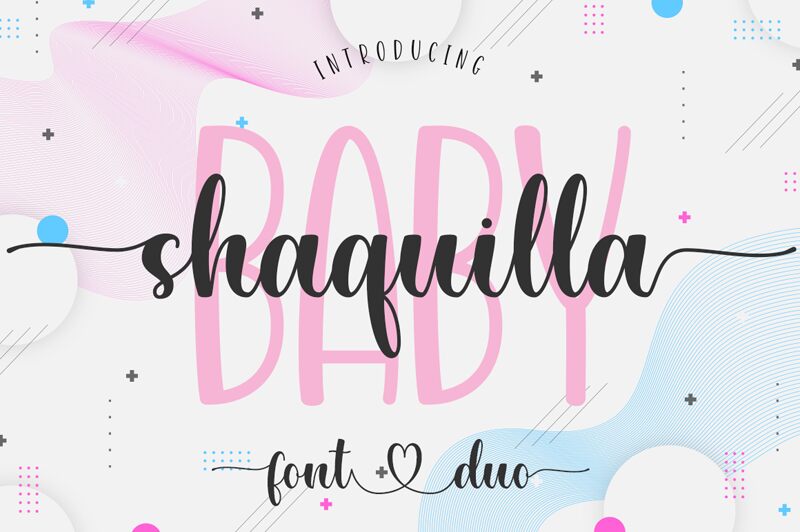
Shaquilla is an elegant calligraphy font designed by Fina Fadlilah with narrow strokes. Perfect for creating stylish logos, branding, wedding invitations, and other classy projects.